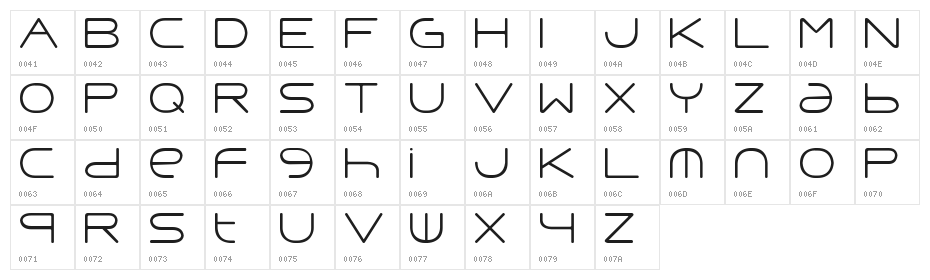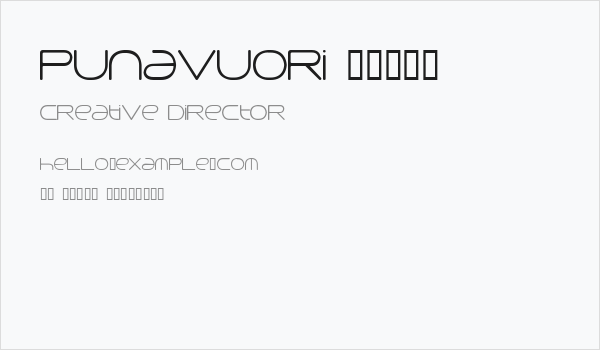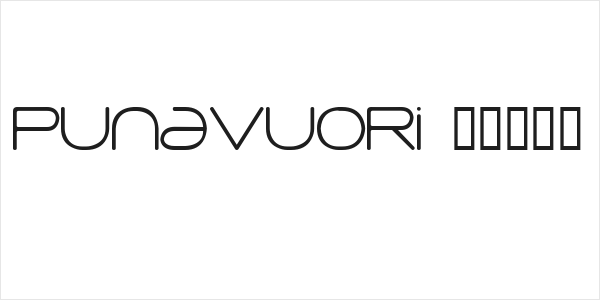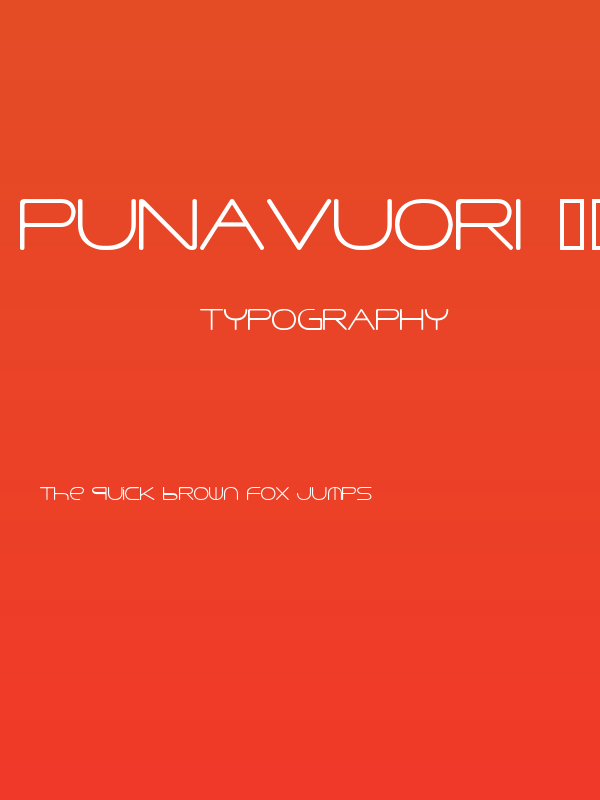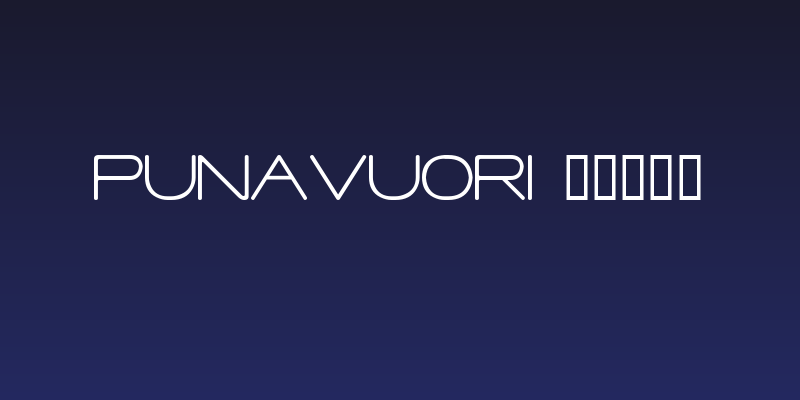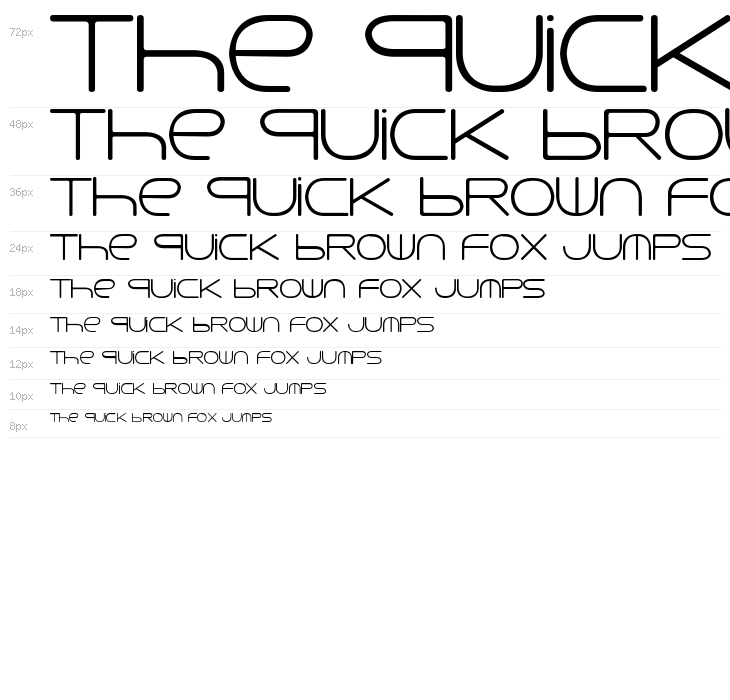
Punavuori 00150 Font
This font features a modern and geometric design, characterized by clean lines and a minimalist aesthetic. The uppercase letters are uniform in height, with a consistent stroke width that gives a sleek and contemporary feel. The lowercase letters mirror the uppercase in style, maintaining the geometric theme with rounded edges and open counters. The numerals are distinct and align well with the overall design, offering clarity and readability. Special characters are crafted with the same attention to detail, ensuring a cohesive look across all glyphs. This font's simplicity and precision make it suitable for a variety of design applications.
Use CaseHeadlines, Logos, Digital Interfaces
Proposed ProjectsIdeal for branding, digital interfaces, and modern print designs.